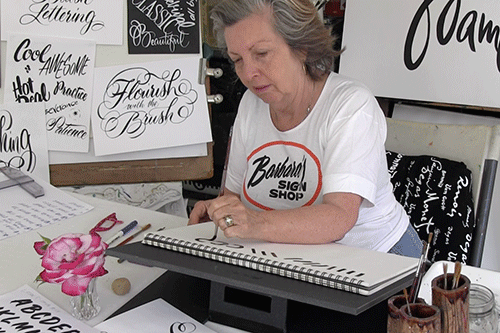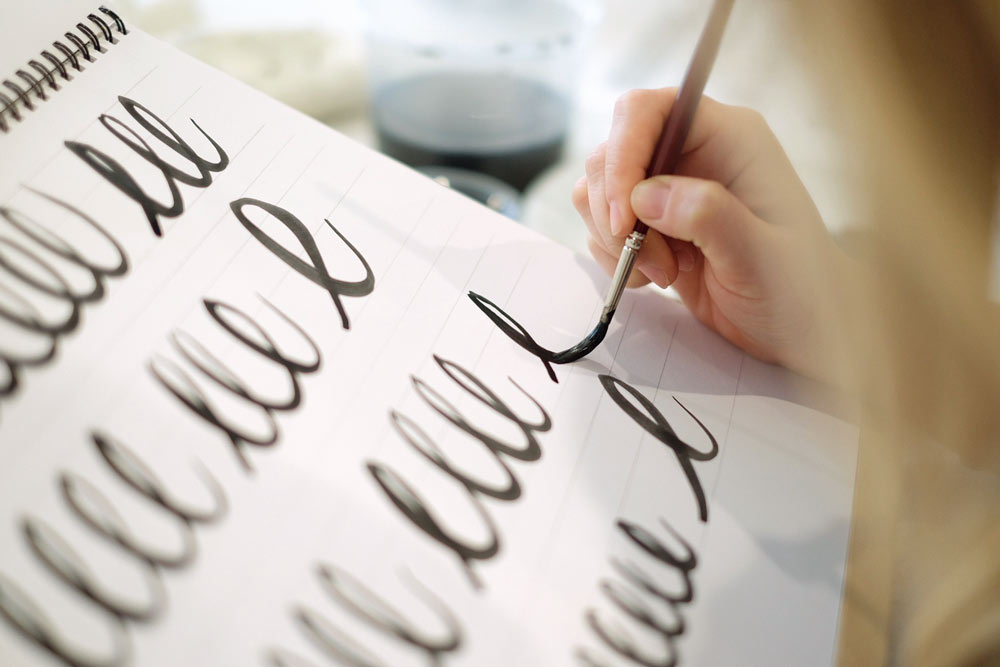
Learn Brush Lettering and a Great Giveaway
Learn Brush Lettering is a very inspiring course brought to you by two incredibly talented artists, Carla Hackett and Barbara Enright. The two ladies have a lot of lettering experience between them. Carla has worked on a number of client projects creating work for Tiffany & Co. and Campaign Monitor to name just a couple, she also makes up one quarter of the hand lettering group 'The Letterettes'. Barbara has worked on show card and ticket writing since the 1960's and had a successful sign business for quite some time.
I recently interviewed sign painter Ged Palmer who creates a lot of lettering with brushes and his work really got my curiosity going. I've experimented a fair bit with brush pens, but there is a big learning curve between using brush pens and brushes. I wanted to know more about lettering with a brush, and I wanted to learn how to do it from one place, without hunting all over the internet to try and find the right tutorials. When Learn Brush Lettering came to my attention it ticked every box! As you read on you'll see there is so much to gain from the online Learn Brush Lettering course, you'll also find details about a fantastic giveaway. If you want to get started with brush lettering I think you're going to love this course just as much as I do!
How You'll Learn
The online Learn Brush Lettering course is both thorough and concise. The course content is presented using videos so you can see clearly and is in manageable sections so that you don't end up feeling overwhelmed. The course content is designed to be spaced out over twelve days, but is completely self paced so you could spread it out over twelve weeks if you wanted to, or even twelve months, there is no time frame as you get continual access! The content is also simply presented making progressing through the lessons a pleasure. All of the content is easy to find and there's also an in-built 'Brush Milage' tracker, so you can keep track of your progress throughout the course.
What You'll Learn
· What tools you’ll need, and how to hold and care for your lettering brush · The foundational brush strokes needed to gain control of the brush · Casual styles and how to add your own personality · Beautiful script styles and finding your signature look · Building your repertoire of flourishes for ascenders, descenders and capital letters · Putting it all together to write your own words and quotes · Skills for you to practice and achieve your lettering goals
Course Benefits
What I really love about this course is the fact that you get sent a professional sable brush to your home, which is specifically designed for brush lettering / sign painting. It's the same brush that's used throughout the instructional videos in the course, so you know you'll have the right tool!
As you work your way through the lessons there is always a little Q&A pop up in the bottom right hand corner of your screen. You just click / tap it and can ask any questions you might have or leave a comment. It never gets in the way of the lesson content and it means you never have to leave a lesson to ask a question! A few lettering courses I've seen online just sell you the content and leave you to get on with things without support or conversation, this course does not do that, I felt personally welcomed.
The course also includes 35 downloadable PDF's which help to reinforce what you've learnt in the course videos and aid your practice. These are easy to access from each lesson, and can be re-downloaded any time you want.
On top of all the lessons, the sable brush sent out, the flow of asking questions and the downloadable PDF's, there is also a private Facebook group which you can join to get personalised feedback from both Barbara and Carla.
There's so much value in this course I almost forgot to mention if you're left handed this course does not exclude you, as both Barbara and Carla are left handed. Techniques get demonstrated from both a right and left hand perspective, so both lefties and righties are welcome!
Two Free Lessons
You might think that two FREE lessons from the Learn Brush Lettering course make up the giveaway which I briefly mentioned earlier on, however you'd be mistaken. There is in fact an option to sign up and access two FREE lessons, and the sign up is so quick and simple. I barely noticed I was signing up it was that straight forward! The free lessons are very informative and I learnt a lot from watching the videos. I highly recommend signing up for the free lessons as you'll get a great insight into how good the Learn Brush Lettering experience is.
The Giveaway
Carla is so lovely and has partnered up with me to bring you a really fantastic giveaway that's exclusive to Lettering Tutorial. Are you ready for it .... you can win a FREE spot on the full Learn Brush Lettering course worth $299 ... seriously how amazing is that!?